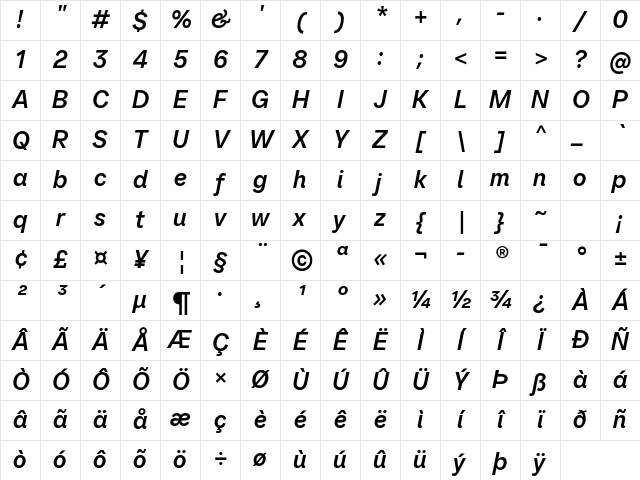
Complete SFT Ritam Sans TRIAL DemiBold Italic glyph index. Displaying only characters natively supported by SFT Ritam Sans TRIAL DemiBold Italic font.
SFT Ritam Sans TRIAL DemiBold is a composed and adaptable typeface that performs quietly and consistently across a wide range of design contexts. The slanted form adds forward momentum and visual energy. Its bold stroke weight gives it real presence on the page.
Pro Tip: Use SFT Ritam Sans TRIAL DemiBold for emphasis, pull quotes, and subheadings where its slanted energy can add rhythm to the layout.